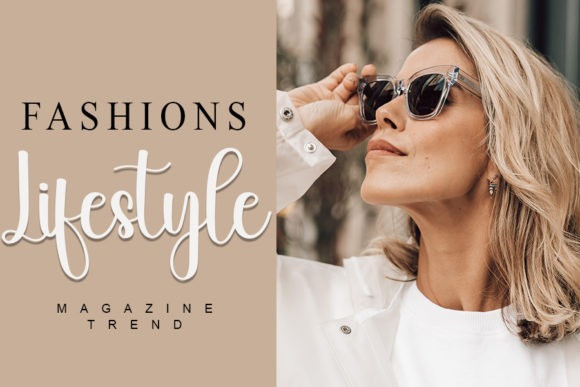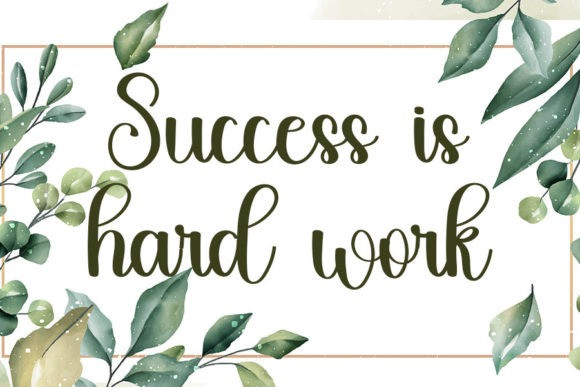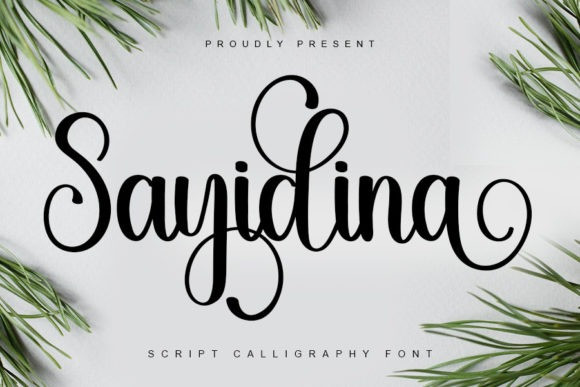
Sayidina Font
Sayidina Font is a lovely handwritten font. It is PUA encoded which means you can access all glyphs and swashes with ease! Add it confidently to your projects, and you will love the results.